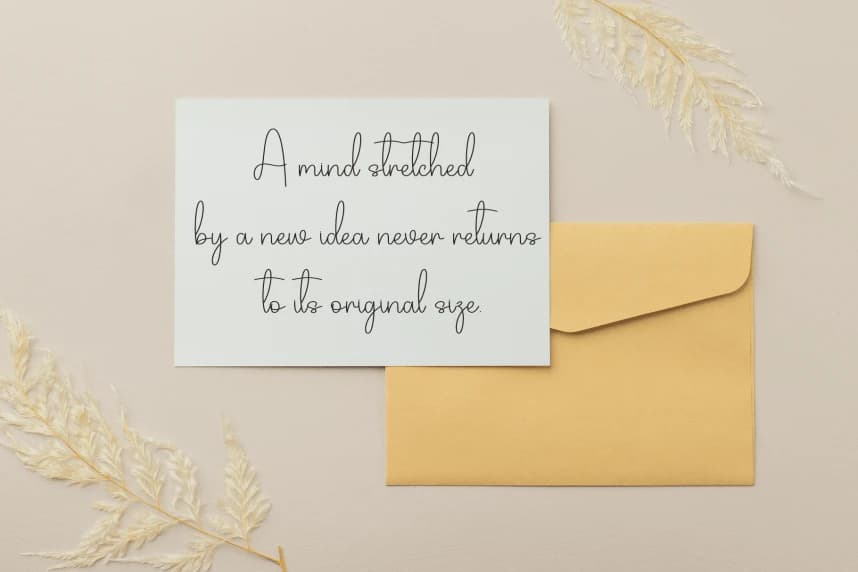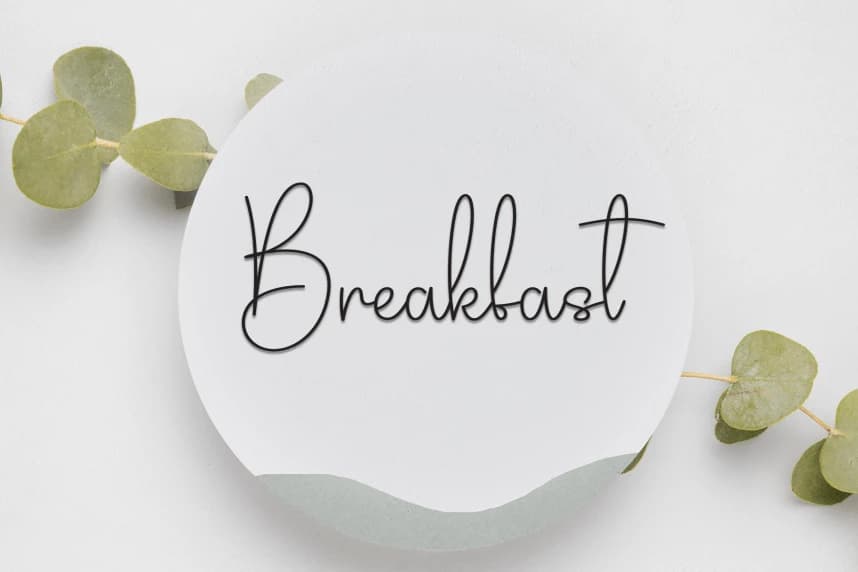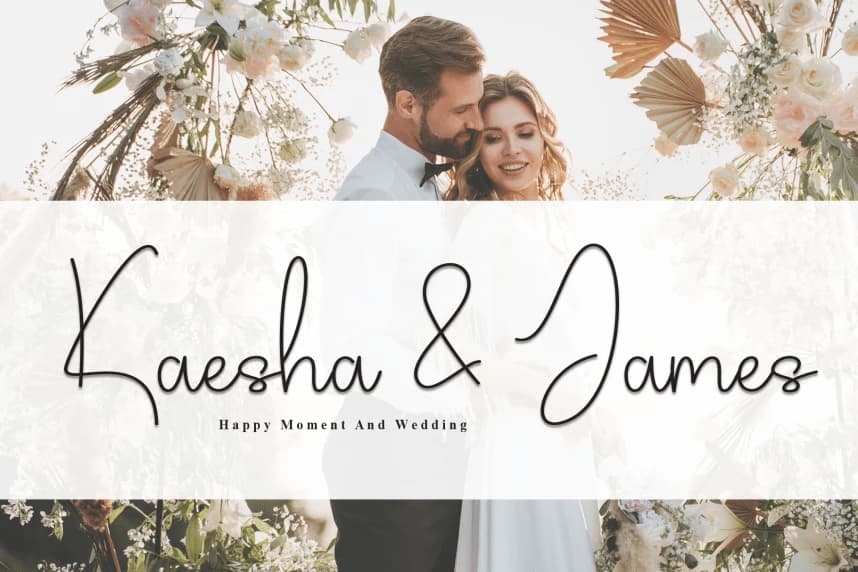
Quiteplace – Casual Handwritten Font
Quiteplace - Casual Handwritten Font is a sweet and friendly handwritten display font. Cute and fun, this font is ideal for writing wedding invitations, cards, or any other design that might need a playful touch!